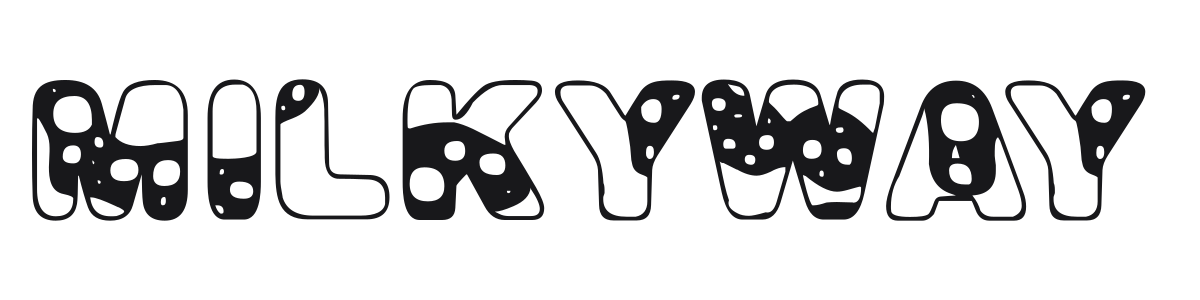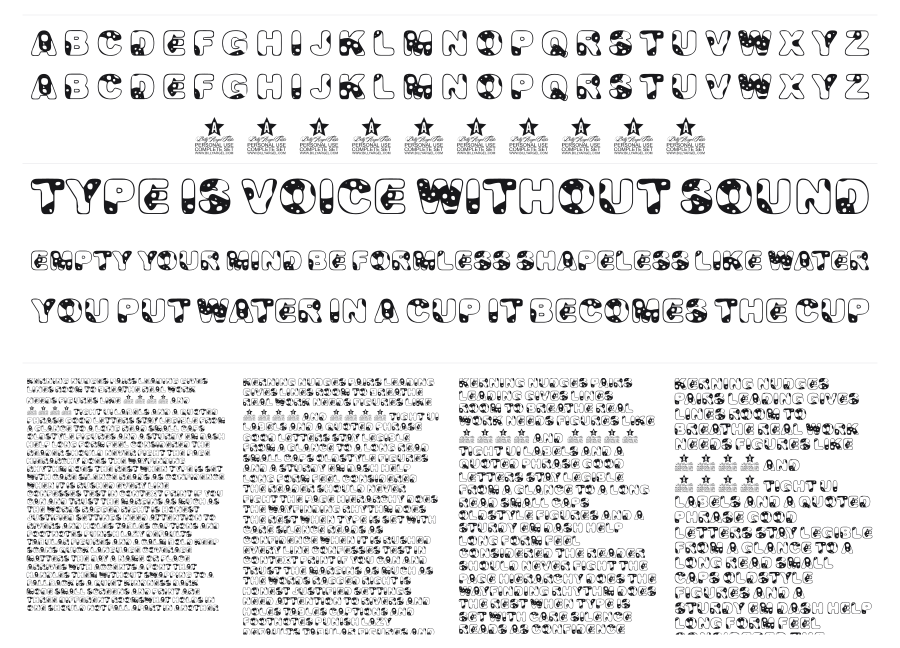
Milkyway
Milkyway is a chunky rounded display font with polka-dot patterns filling the interior of each character, giving every letter a spotted, cosmic quality. The balloon-like proportions and double-outline construction make it feel cheerful and cartoon-ready. It works best big, where all those spots can breathe.